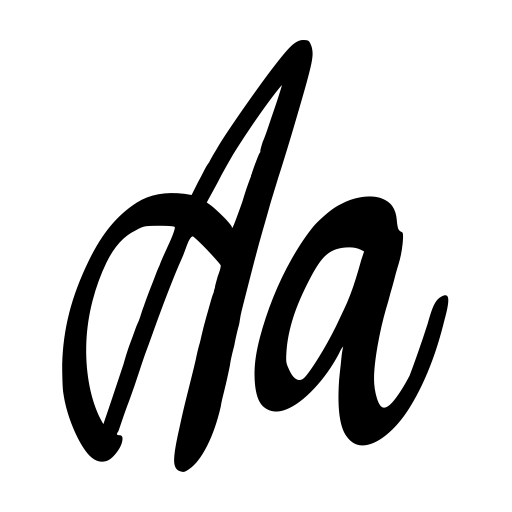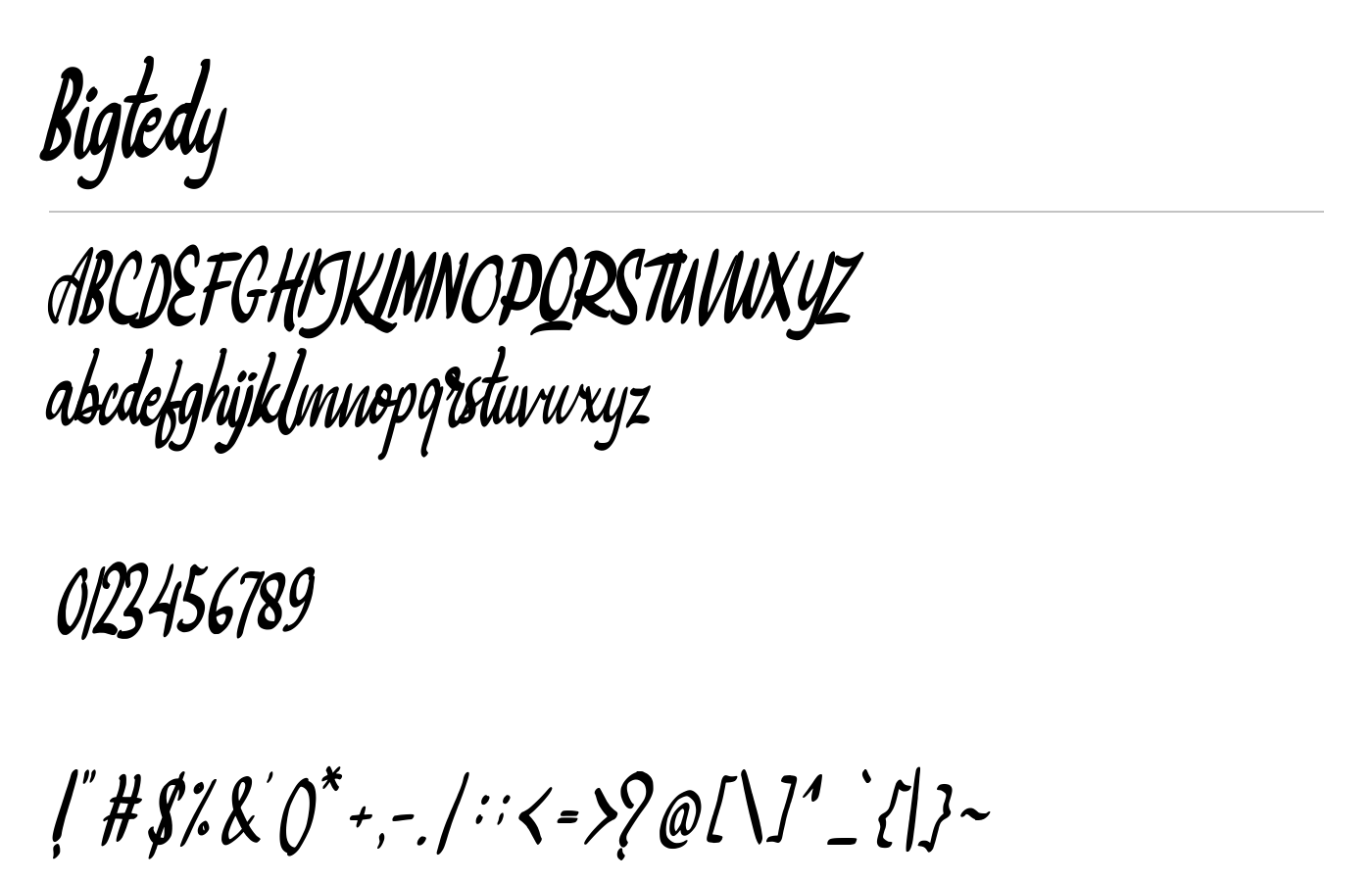
Bigtedy is a lively, handwritten script font with a casual and energetic feel, featuring tall, narrow letterforms and smooth, fluid strokes. Its medium weight and dynamic slant give it a personal, friendly character, making it ideal for playful branding, invitations, or creative headlines where a touch of informal charm is desired. This font works well in designs that seek warmth and approachability without sacrificing style.
Bigtedy Font
About Bigtedy Font
| Font family | Bigtedy Font |
| Designer | Fannan Studio |